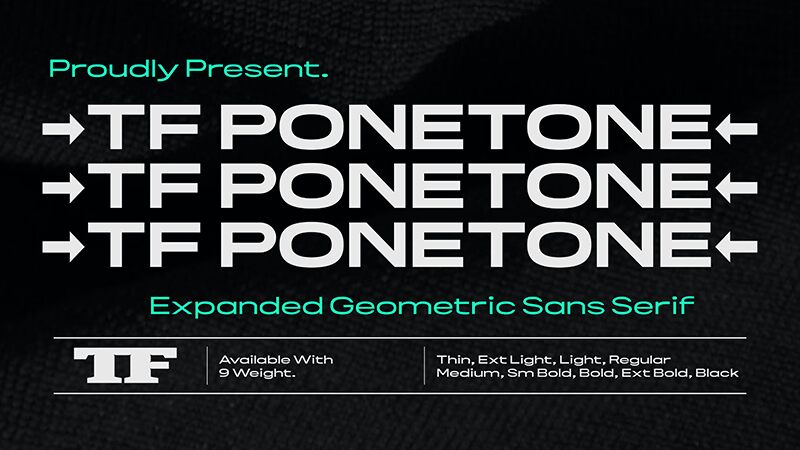
TF Ponetone Expanded
TF Ponetone Expanded font by Eifetstype is a sleek, modern sans serif with minimalistic and geometric influences. With its clean aesthetic and expanded appearance, this typeface offers an eye-catching yet subtle design perfect for contemporary applications. Every letter is given prominence, granting the texts of the projects in which the font is used special attention.
TF Ponetone Expanded makes headlines for magazines, newspapers, and websites just as nice as other texts like book titles or portfolio presentations. The free font can also be used by artists and designers in their logotypes or branding/packaging projects where it will stand out effortlessly.